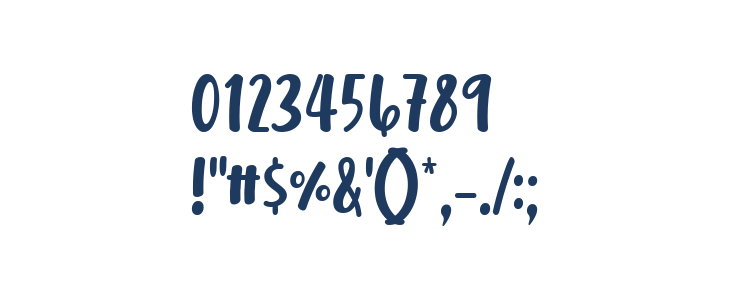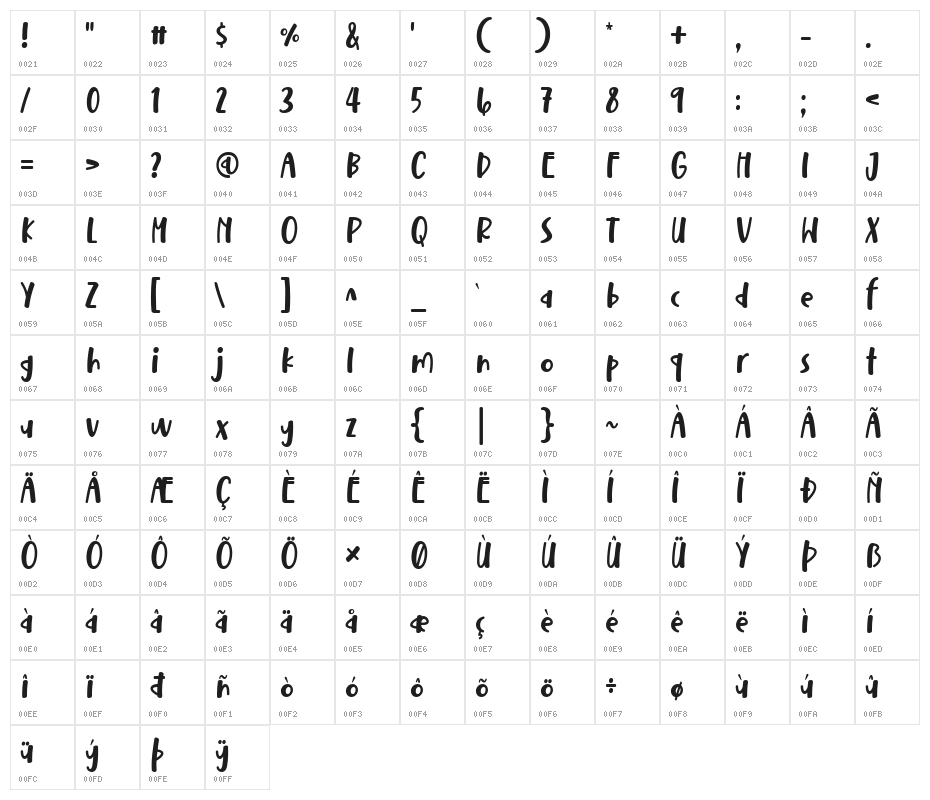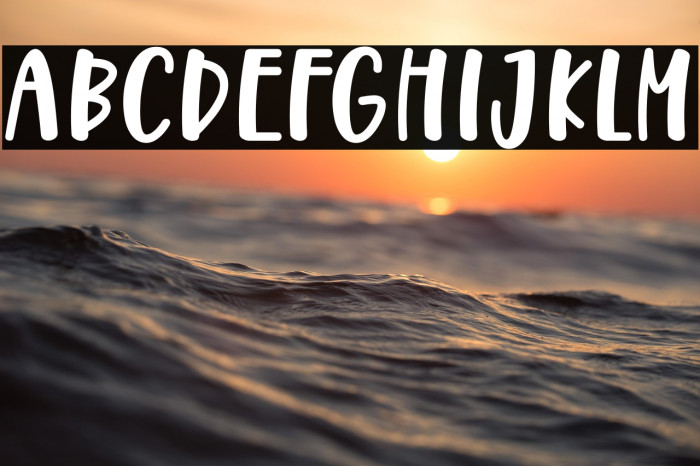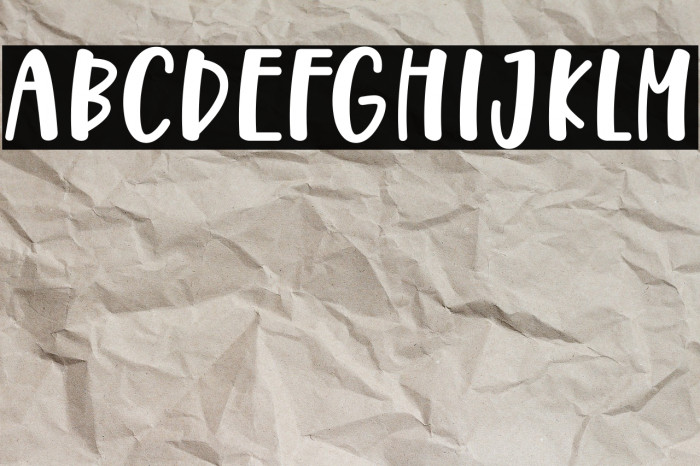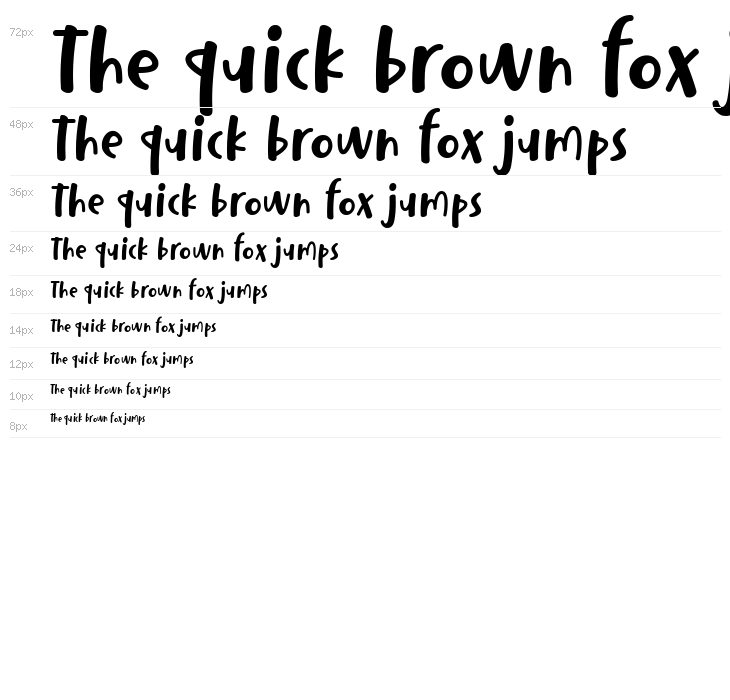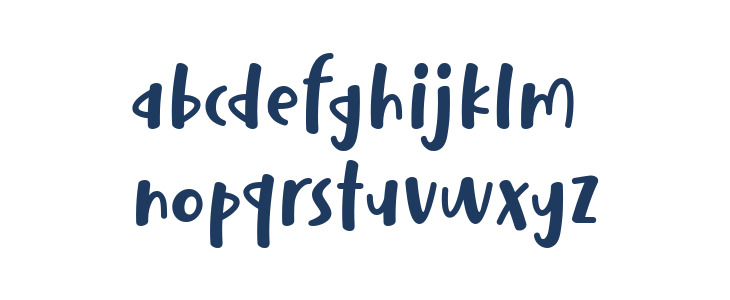
Nathals Font
Nathals Description
This font features a playful and casual handwritten style, characterized by its bold and rounded letterforms. The strokes are thick and consistent, giving it a friendly and approachable appearance. The uppercase letters are slightly taller than the lowercase, with a smooth flow that maintains readability. The numbers and special characters follow the same style, ensuring uniformity across all glyphs. This font's informal nature makes it suitable for creative and fun projects.
| Overall Style | Casual, Playful |
| Proposed Projects | Ideal for greeting cards, children's books, playful branding, and social media graphics. |